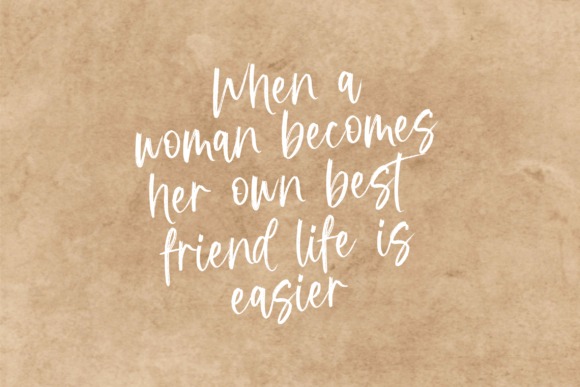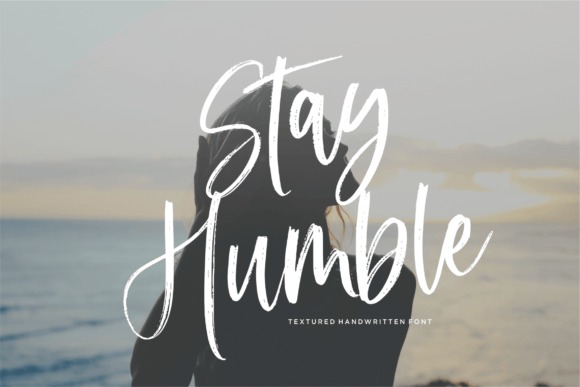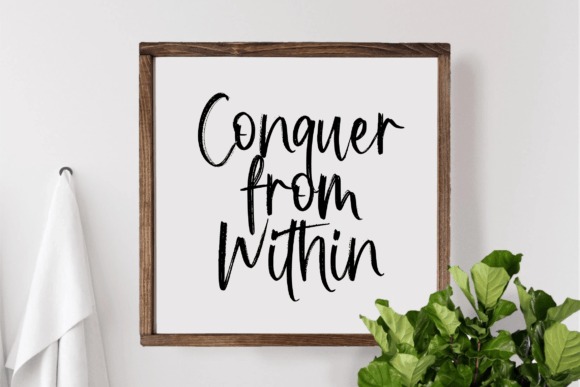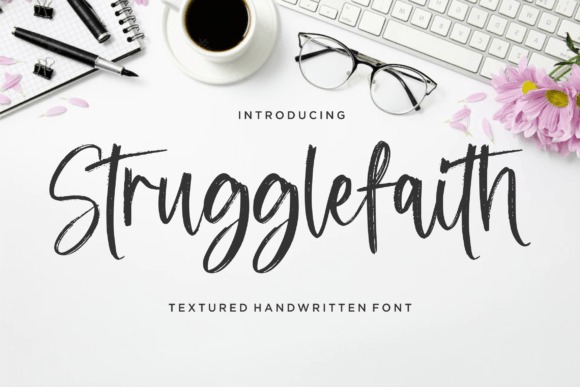
Strugglefaith
Strugglefaith Brush Font
This is a Textured Handwritten Font. Strugglefaith is perfect for product packaging, branding project, megazine, social media, wedding, or just used to express words above the background.–  Note of the author –